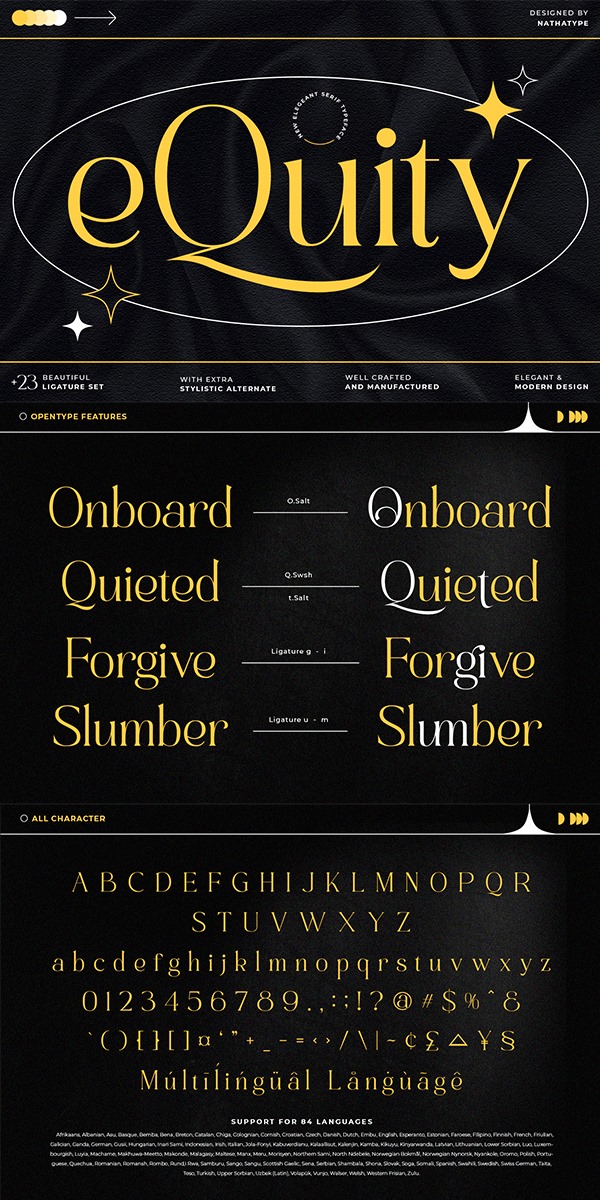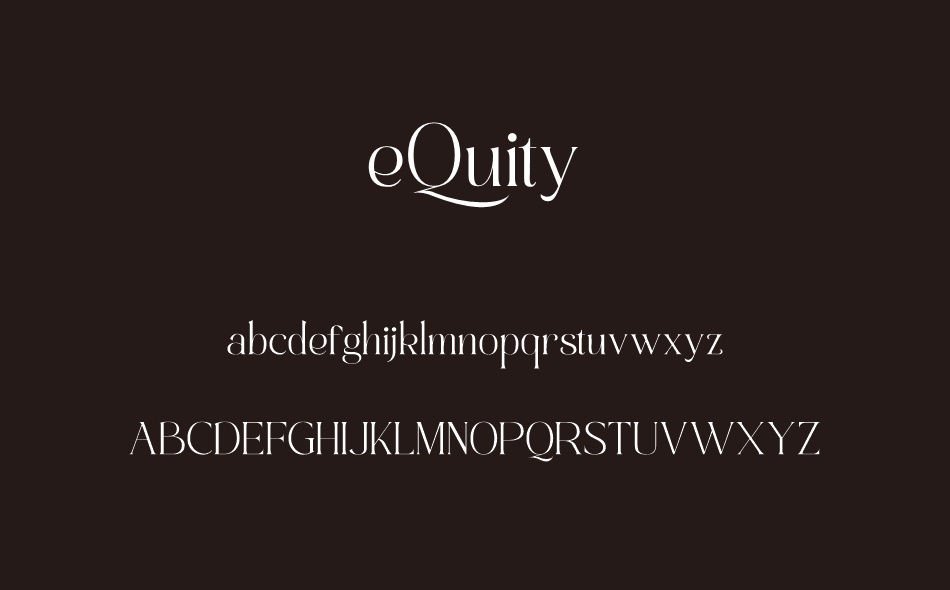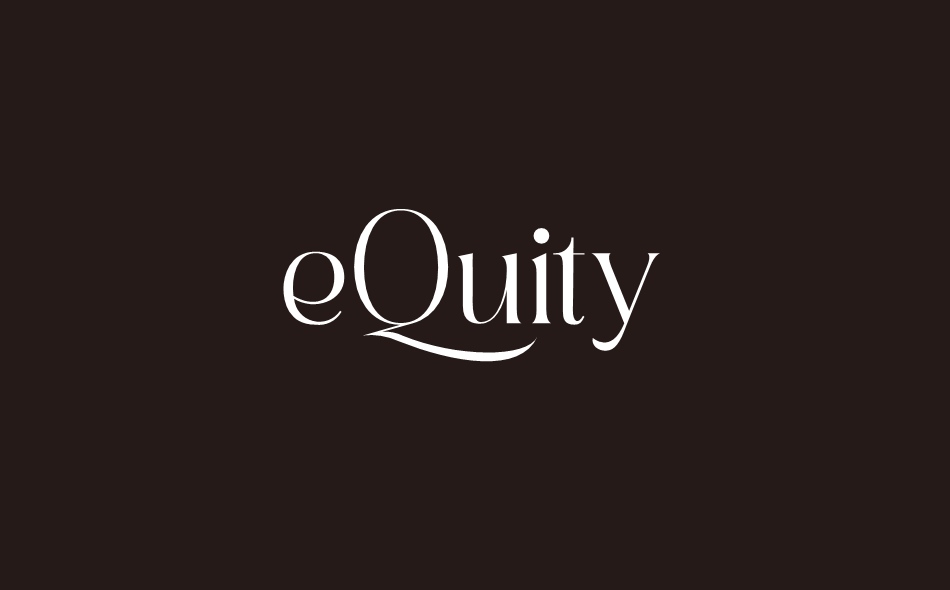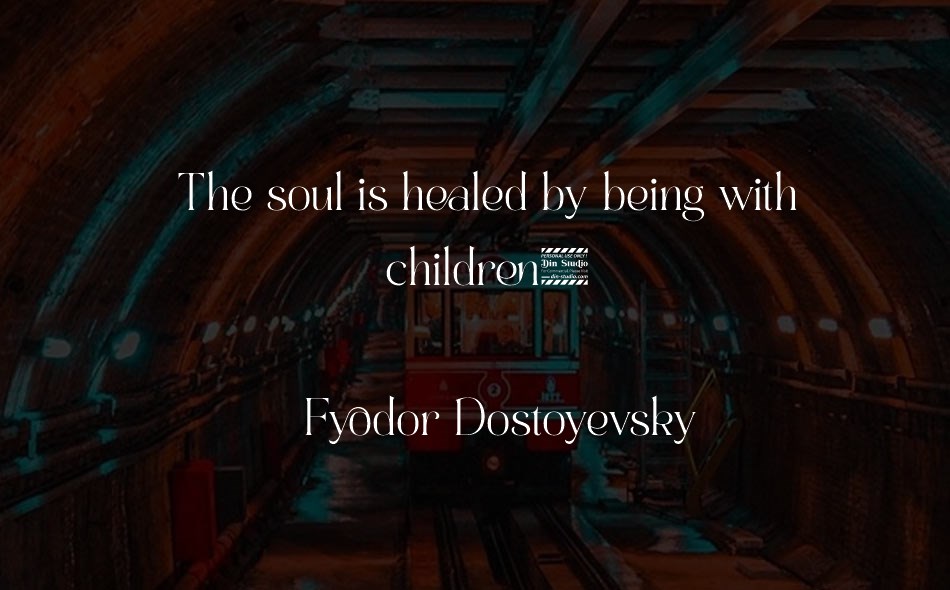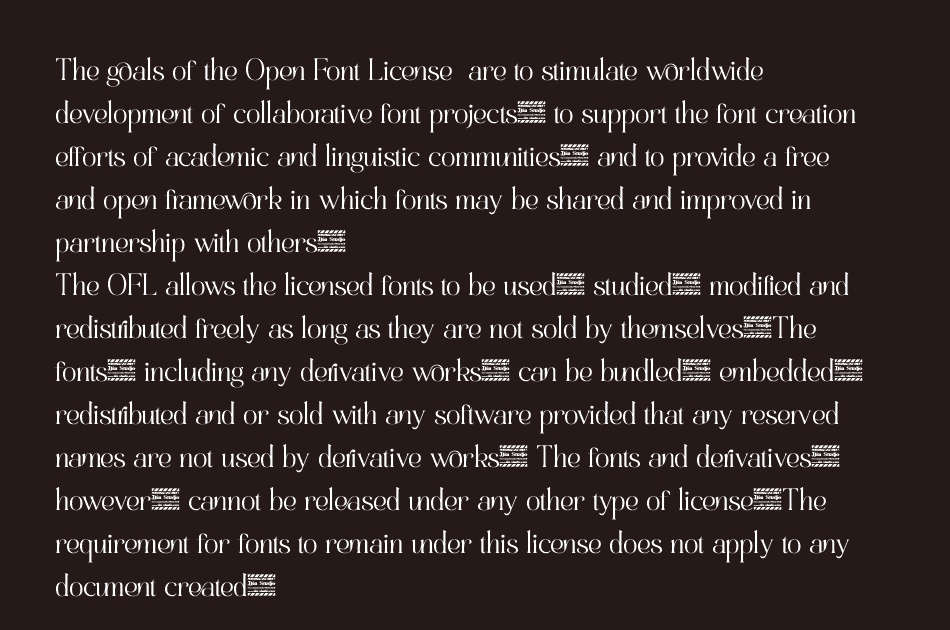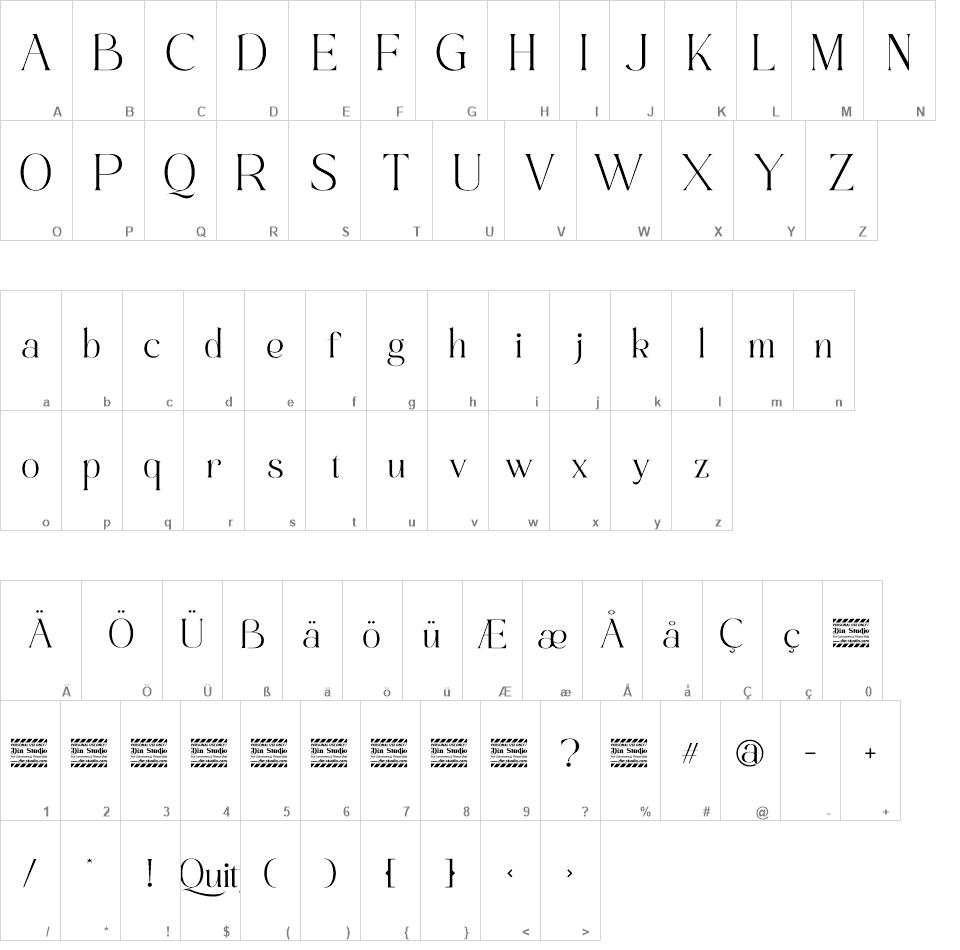
Equity font
EQuity-A Serif Font
EQuity is a modern, luxury, but still authentic serif font. This font is perfect for branding, logos, wedding
stationery, cards, gift designs, photography, watermark, product packaging and quotes. You won’t get
cute, whimsical, funny logos with this font. Only high-end, upscale, sophisticated Branding Design.
Our font always includes Multilingual Support to make your branding reach a global audience. Inspire
your audience, clients, or guests with this beautiful, statement font.
Features:
• Alternates
• Ligatures
• Swashes
• Numerals and PunctuationINDONESIA :